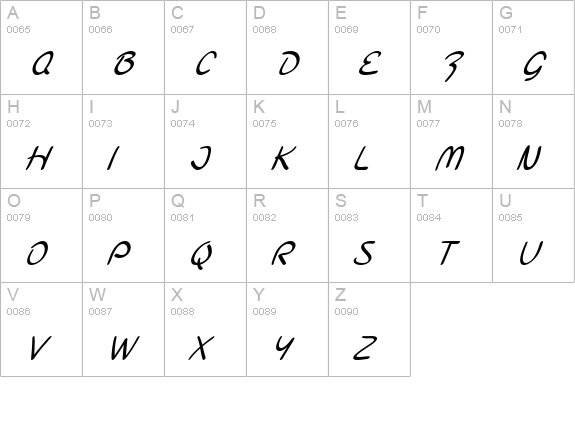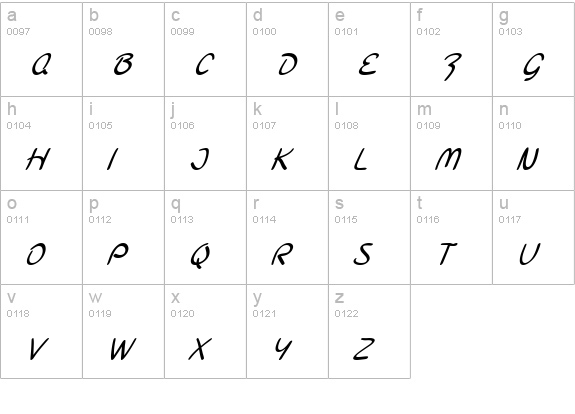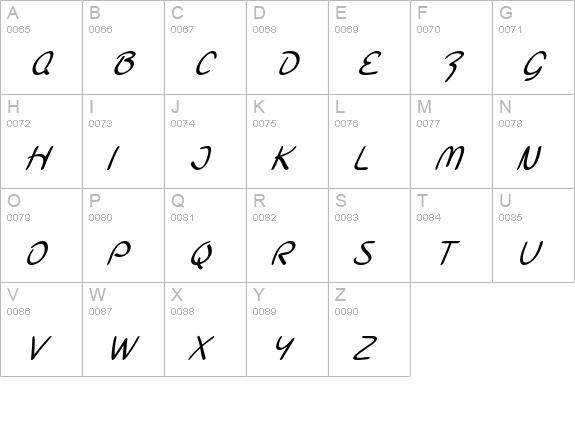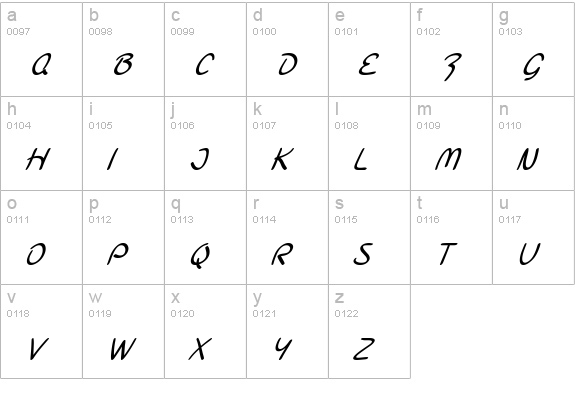
SF Burlington Script SC Bold Italic Font Details
SF Burlington Script SC Bold Italic is a strong, high-contrast, italic variant in the SF typeface family \xE2\x80\x94 well suited to headlines, attention-grabbing titles, and strong calls-to-action.
SF Burlington Script SC Bold Italic is a stunning font that combines elegance with a touch of playfulness. Its bold and italic design gives it a unique and eye-catching appearance, perfect for adding a touch of sophistication to any project. This font is meticulously crafted with attention to detail, ensuring each letter flows seamlessly into the next. The script style creates a sense of fluidity, mimicking the graceful movement of handwriting. Its compact size makes it ideal for adding captions or highlighting specific text in any design. SF Burlington Script SC Bold Italic is not only visually appealing but also versatile. It can be used in a wide range of design projects, including logos, branding materials, packaging, invitations, and much more. Its versatility allows it to adapt to various themes and styles, making it a go-to choice for designers looking to add a touch of elegance to their work. The best part? SF Burlington Script SC Bold Italic is available for free! You can easily download it at FontsMarket.com. This means that you can enhance your designs without breaking the bank. Whether you're a professional designer or a hobbyist, this font is accessible to everyone. So why wait? Download SF Burlington Script SC Bold Italic now and bring a touch of sophistication to your next design project. With its elegant and playful style, it is sure to make a lasting impression. Don't miss out on this opportunity to enhance your designs with a high-quality, freely available font.